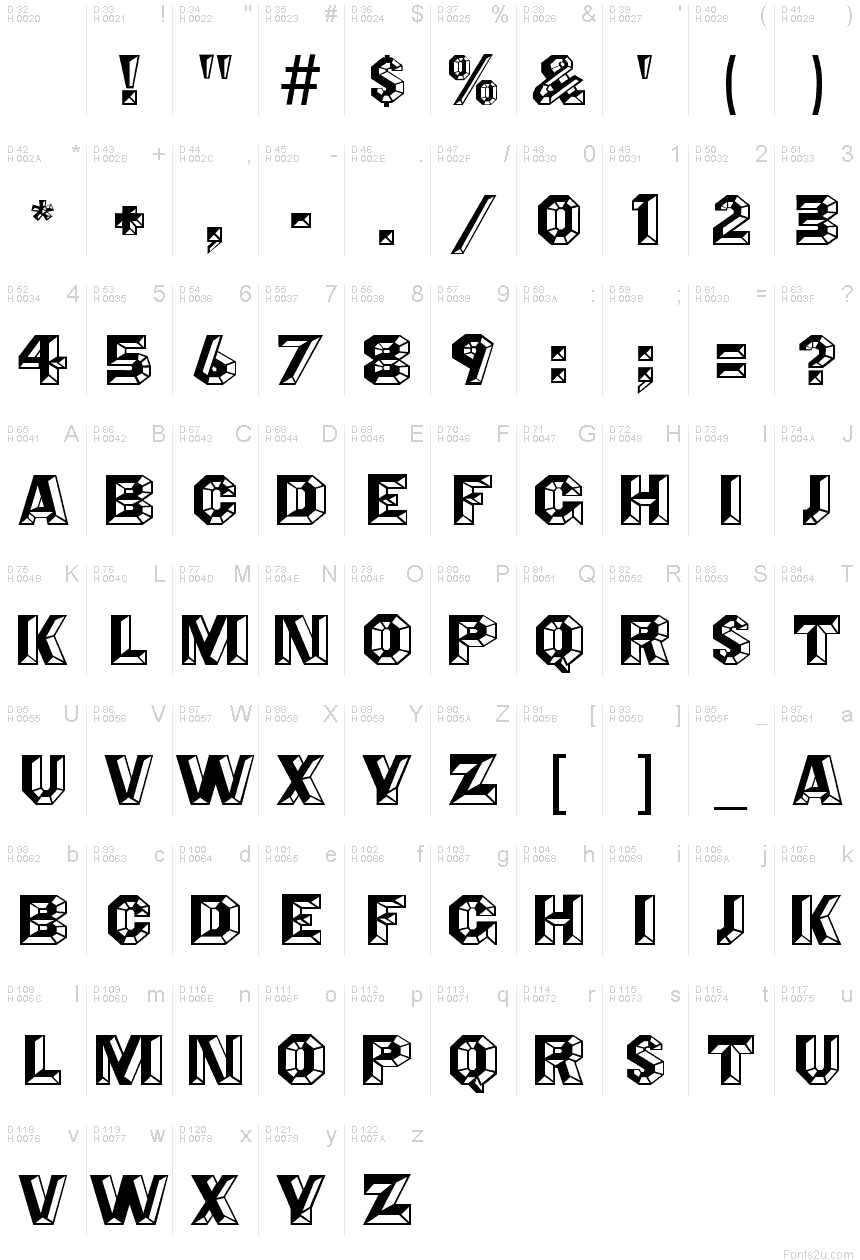
Angles Octagon
Angles Octagon font is a free techno 3D display typeface that looks like it’s built from interlocking metal panels and bright wireframes. The hollow, octagonal structure gives each letter a mechanical, almost arcade-cabinet glow, while the tight geometry keeps everything feeling engineered and precise. It’s bold, angular, and instantly reads as sci‑fi hardware or futuristic signage rather than just another decorative font.
Using Angles Octagon, you can push high-impact titles for game logos, esports branding, sci‑fi posters, tech event banners, YouTube channel art, or hacking-themed interfaces. This free font shines at large sizes where the 3D edges and facets can really snap, and it stays surprisingly legible in short phrases. Pair it with a clean, neutral sans-serif for body text and let Angles Octagon handle the loud, glowing headlines.